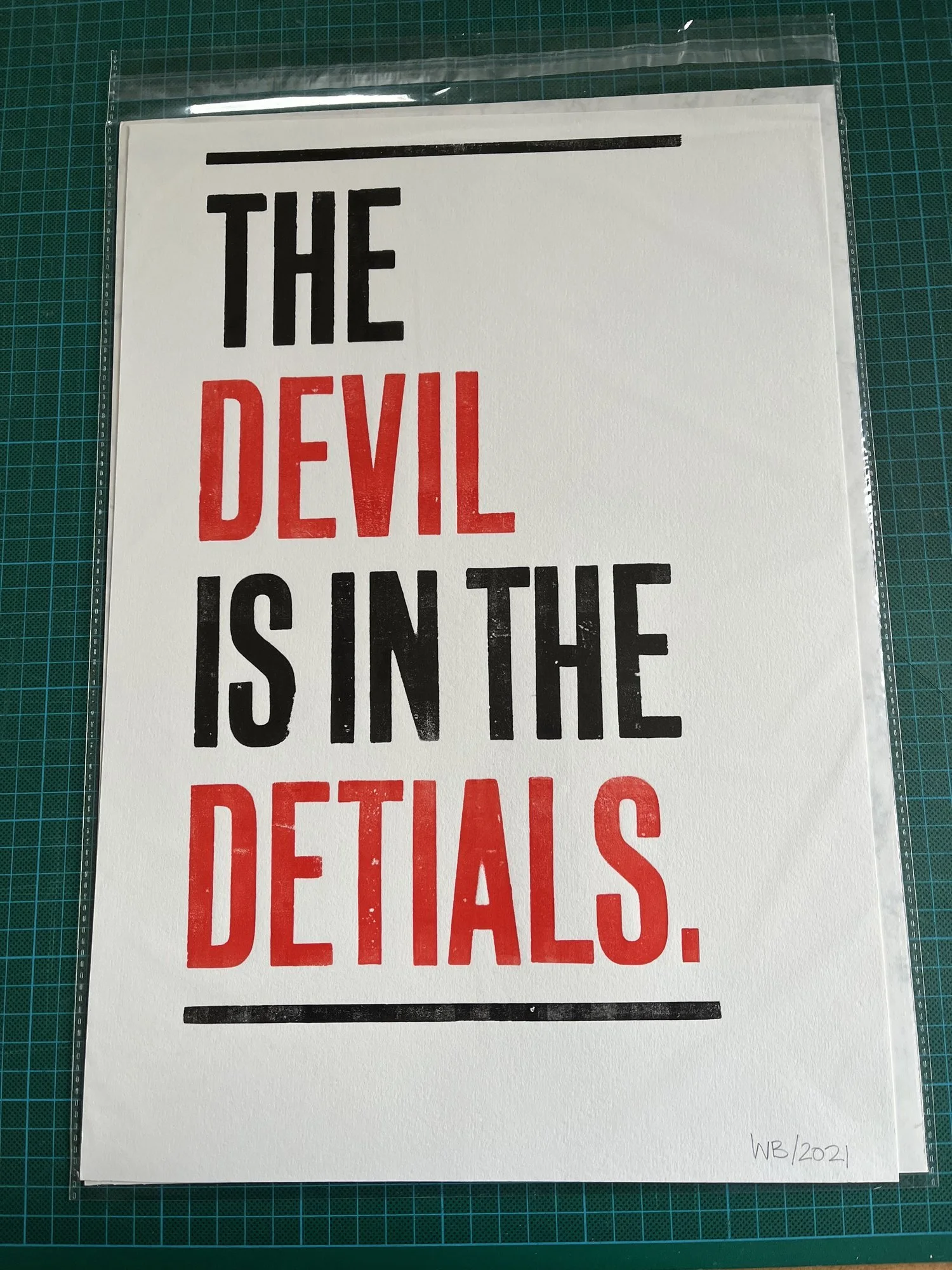
Limited Edition - Made with wood letter, using vegetable based inks with linseed oil. Printed on cotton rag paper.
Suffolk based Winklebag Press use a couple of vintage presses to produce printed material with that unique letterpress quality. All of their equipment is ‘previously enjoyed’, mostly rescued from retired printers who wanted their presses to be used rather than ending up in a skip.